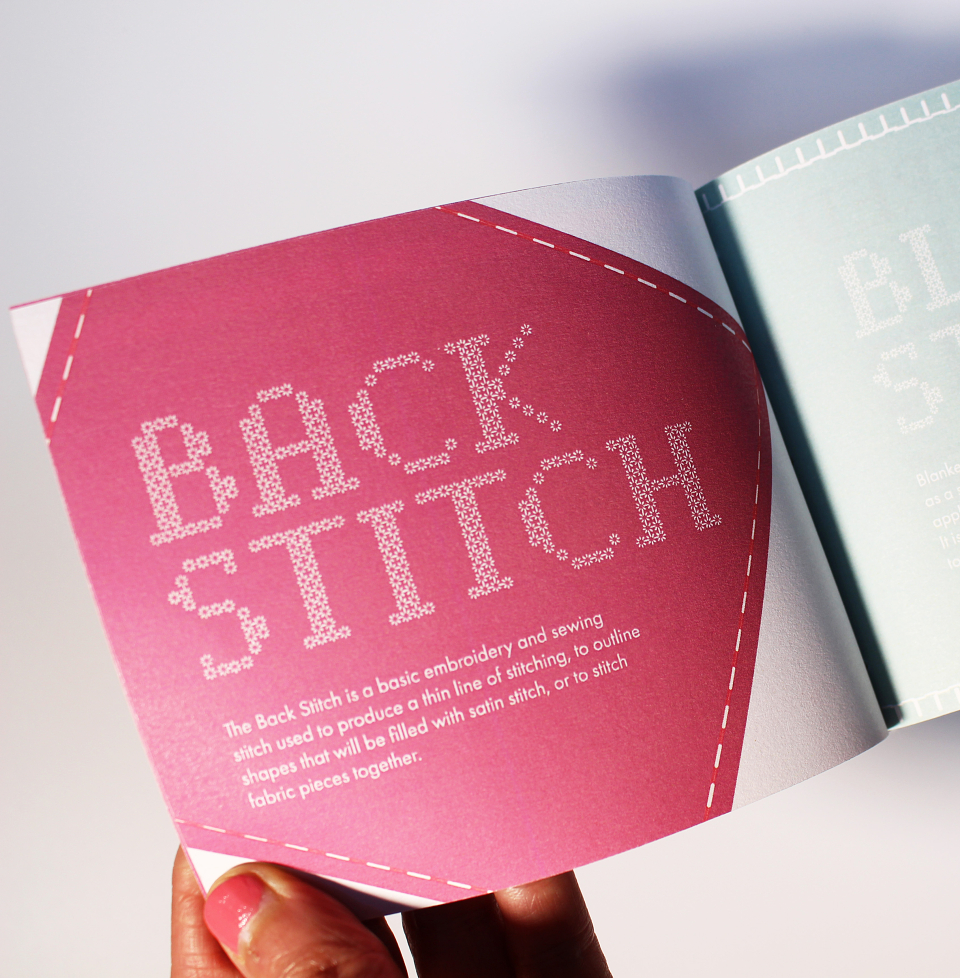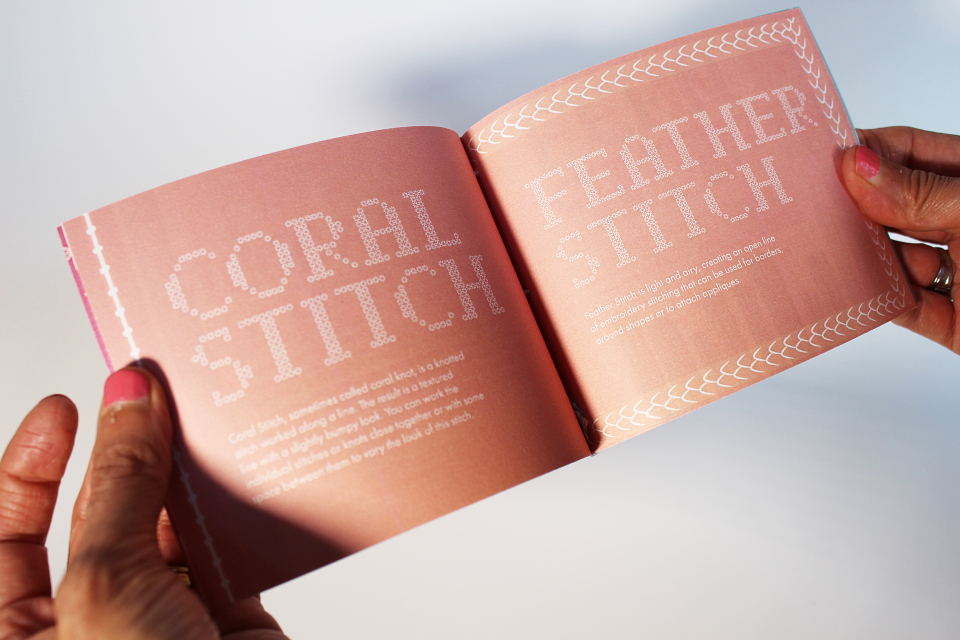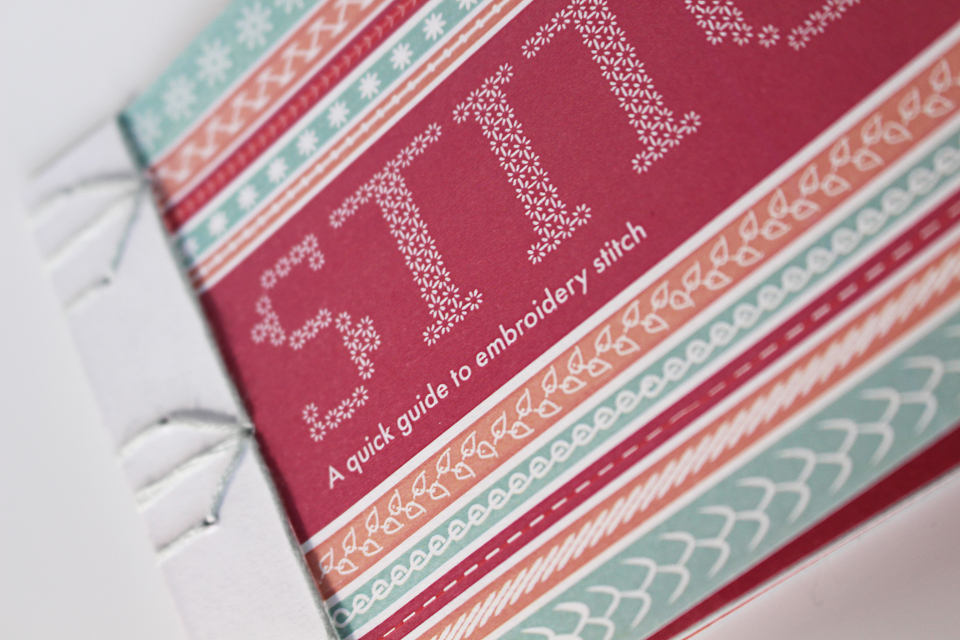
This was a week-long 'passion project' where I was able to produce anything I wanted, the choice was down to me. Therefore I decided to create a typeface inspired by embroidery stitch, my typeface is called ‘Flower Stitch’ the stitch shapes themselves that make up the letters are specifically inspired by an embroidery stitch called ‘Lazy Daisy’, the typeface is best used in large headlines as you can see in my book. I wanted to display my typeface in a conceptual and fitting way so I chose to display it in short guidebook to the different types of embroidery stitch.
Stitch Typeface